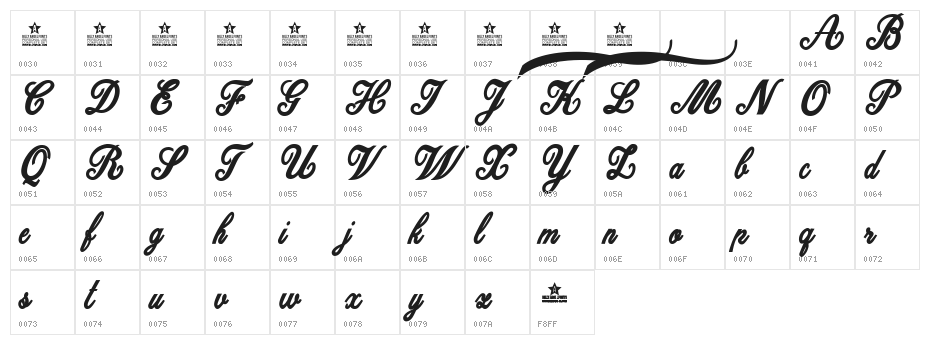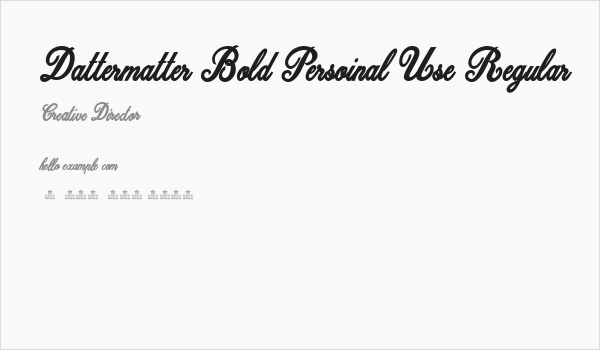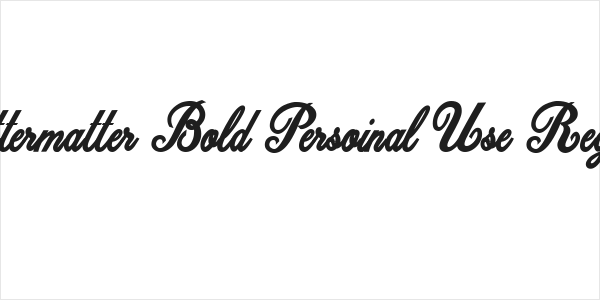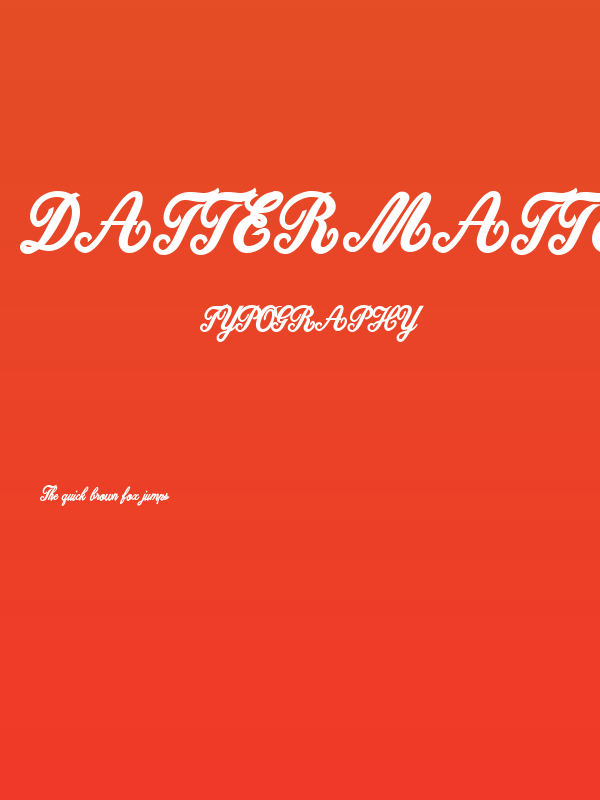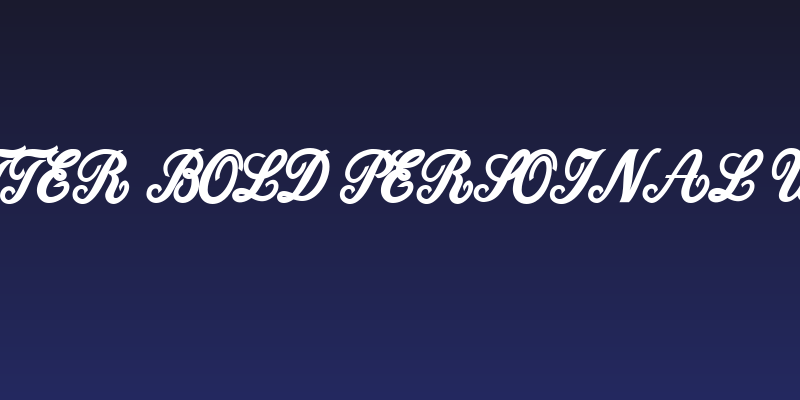
Dattermatter Bold Persoinal Use Regular Font
Dattermatter Bold Persoinal Use Regular Description
This font features a bold, cursive style with elegant loops and flourishes, giving it a sophisticated and artistic appearance. The uppercase letters are ornate, with intricate details that enhance their decorative nature. The lowercase letters maintain a consistent flow, emphasizing the script-like quality of the font. The numbers and special characters are designed to match the overall aesthetic, ensuring a cohesive look across all text. This font's boldness and decorative elements make it ideal for projects that require a touch of elegance and flair.
| Proposed Projects | Ideal for wedding invitations, branding, logos, and decorative headings. |